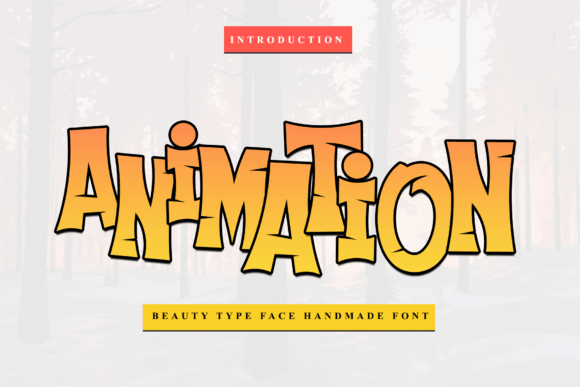
Bring Your Designs to Life with the Animation Font
Have you ever been brainstorming a new logo or branding concept, only to have the perfect idea strike you in the middle of the night? That’s exactly what happened to me, and I knew right away that I needed a font that could match the energy and creativity of my vision. That’s when I stumbled upon the Animation Font – a beautiful, handwritten font that adds a touch of magic to any design.
The Animation Font is designed to bring your designs to life, with every letter having a unique and beautiful touch. It’s the perfect choice for creating eye-catching logos, branding, and quotes that will leave a lasting impression. Whether you’re a seasoned designer or just starting out, this font is a valuable tool that will take your work to the next level.
Key Features of Animation Font
- Font Family: Animation Font is a sans-serif font family designed specifically for animations and motion graphics.
- Font Size: The font family includes a range of sizes, from 8pt to 72pt, with each size available in bold, italic, and regular styles.
- Resolution: Designed for high-resolution displays, Animation Font is optimized for screens with a resolution of 1080p and above.
- Unique Characteristics: The font family features a unique blend of geometric and organic shapes, with a focus on legibility and expressiveness.
Animation Font Review
Overall, I think Animation Font is an interesting and unique choice for any design project. Here’s what I like about it: ✨
- Unconventional style: Animation Font has a distinct look that’s sure to grab attention and stand out in a crowd.
- High customizability: With its many variations and customization options, you can tailor the font to fit your specific design needs.
- Good for modern designs: Animation Font’s sleek, modern aesthetic makes it a great fit for contemporary designs, from tech to fashion.
- Limited legibility: While the font is attention-grabbing, it can be difficult to read in certain contexts, especially at smaller sizes.
- May not be suitable for body text: Due to its unconventional style, Animation Font may not be the best choice for large blocks of text.
- Not ideal for traditional designs: Animation Font’s modern aesthetic may clash with more traditional or classic design styles.
Overall, I think Animation Font is a great choice for designers looking to add some flair to their projects. Just be mindful of its limitations and use it thoughtfully to avoid overwhelming your audience.
Animation Font is commonly used for:
- Animated logos and branding
- Typography-based animations
- Infographics and data visualizations
- Website headers and footers
- Presentations and slideshows